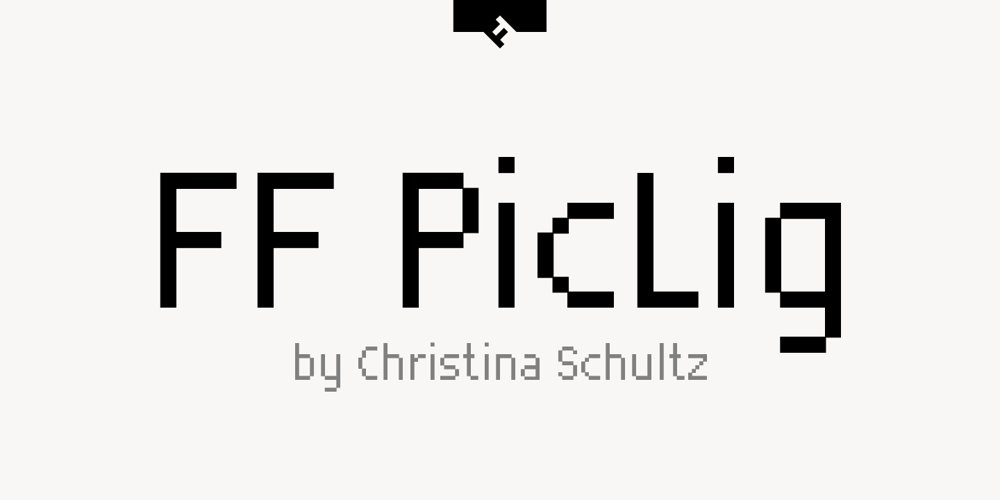
FF PicLig
FF PicLig font
FF PicLig Font Family was designed by Christina Schultz and published by FontFont. FF PicLig contains 1 styles and family package options. FF PicLig is a smart OpenType font that makes it possible to create symbols out of typed characters. While OpenType’s “discretionary ligatures” usually connect two or more characters to create a typographic ligature, designer Christina Schultz used this feature of the technology to combine several characters into an icon, a “picture ligature.” The automatic substitution of certain character combinations allows the direct integration of icons into text, enabling users to communicate more expressively.